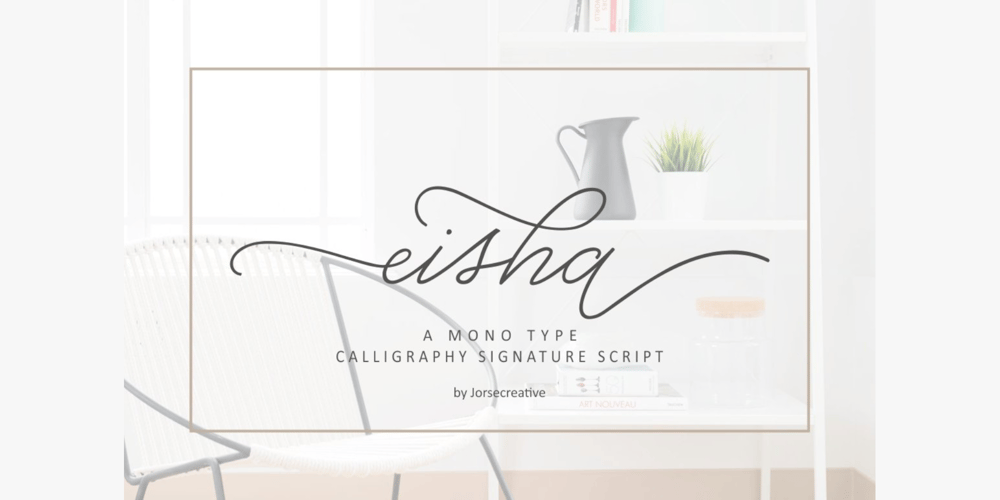
Eisha Script Font Family was designed by Symon Adam Abdullah and published by Jorsecreative. Eisha Script contains 1 styles and family package options. The Eisha is a modern, handwritten calligraphic font with a sophisticated flow. It’s perfect for branding, wedding invitations, diaries, cups, mugs and greeting cards.Eisha has a smooth texture, so it will be perfect for all kinds of printing techniques.